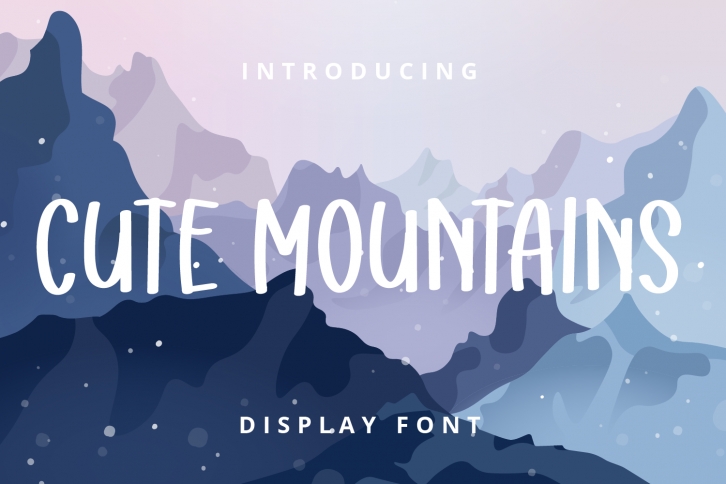
Cute Mountains is a simple and casual display font. No matter the topic, this font will be an incredible asset to your fonts’ library, as it has the potential to elevate any creation.